Family
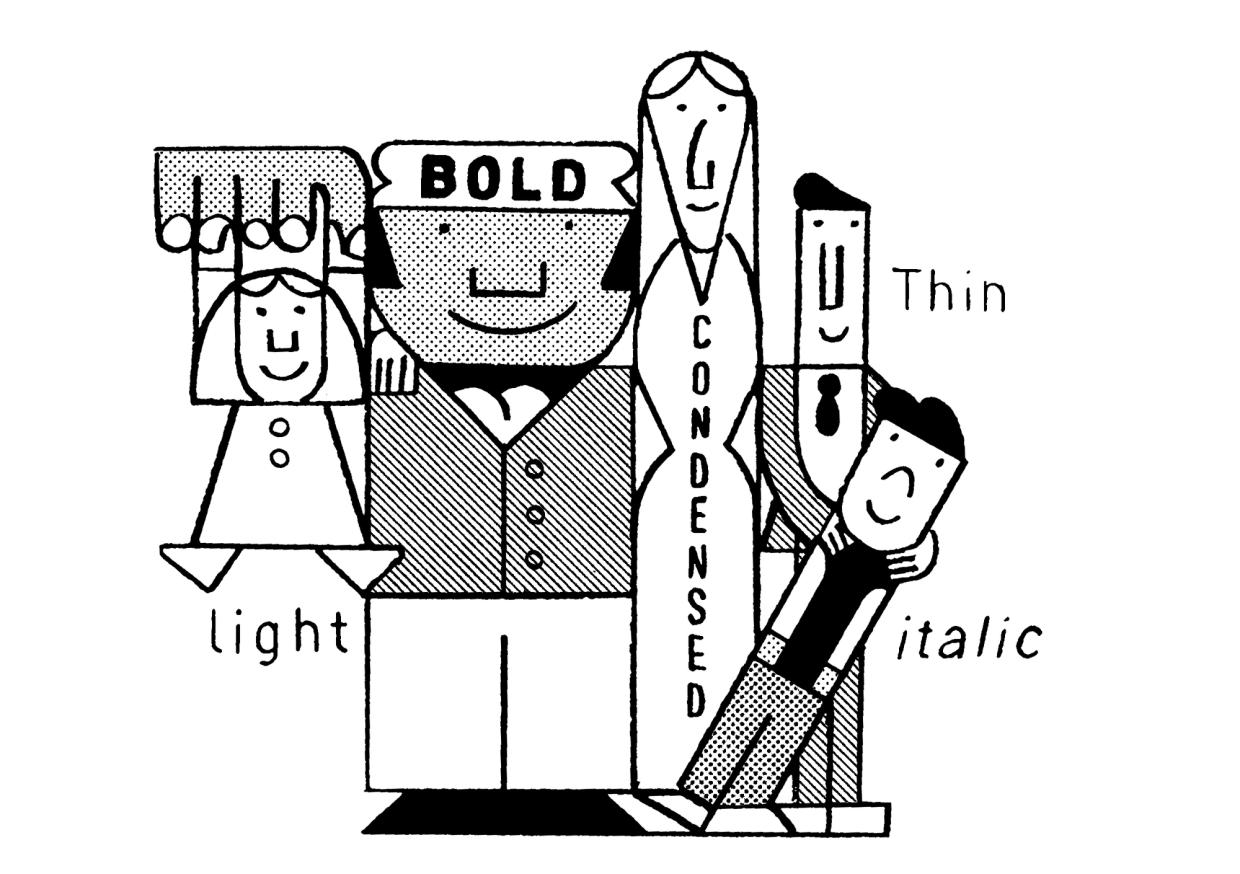
While a typeface refers to its design concept, a typeface (or font) family is the collection of styles derived from that design.
Each style has their own specificities (weight, width, contrast, slope, etc.), while retaining common characteristics—making them part of the same family.
A family usually contains a limited number of styles along the weight axis, including their matching italics.
When it spans a wide range of styles, across multiple axes, it is often referred to as a “superfamily.” These large families are often grouped into subfamilies to organize styles more clearly in the font menus of text editor softwares.